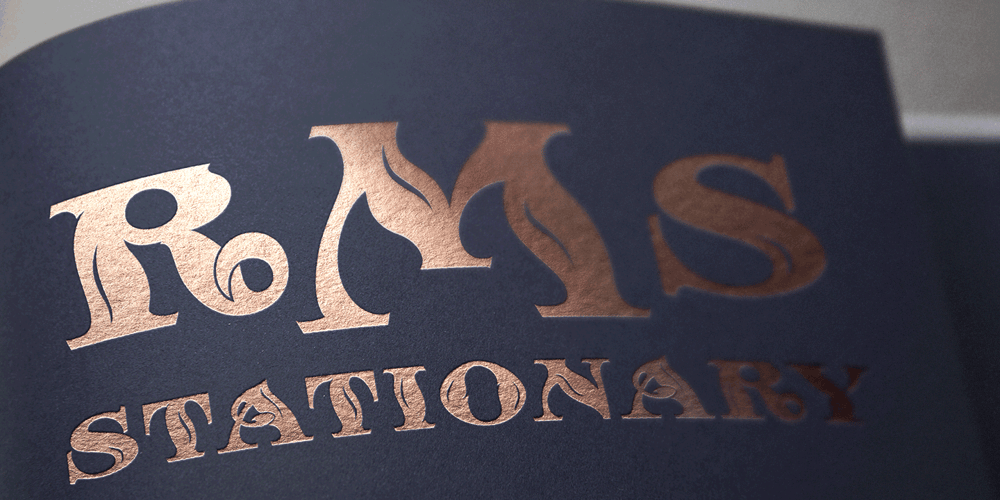
MFC Sansome Monogram Font Family was designed by Jim Lyles, Brian J. Bonislawsky and published by Monogram Fonts Co.. MFC Sansome Monogram contains 1 styles and family package options. The inspiration source for MFC Sansome Monogram is a decorative serif lettering style that comes from the book Henderson’s Sign Painter from 1906. Known as “Rustic Roman” and originally designed by John F. Irwin, this fantastic typeface has been digitally revived and expanded for monogram designs. While the original lettering did not include numerals and was never originally intended for monograms, its ornate nature lends itself so wonderfully to the craft. A PDF guidebook for MFC Sansome Monogram is available under the Gallery tab.